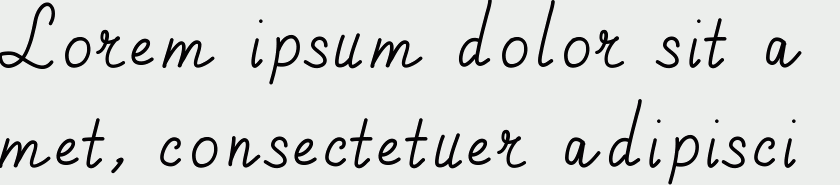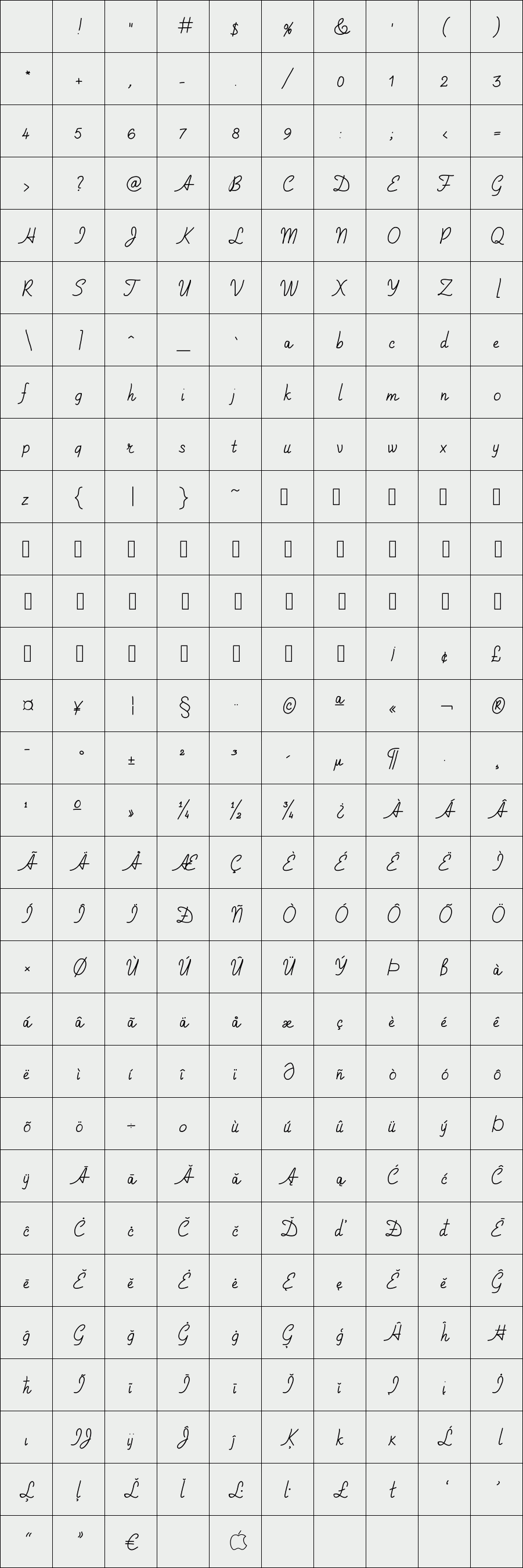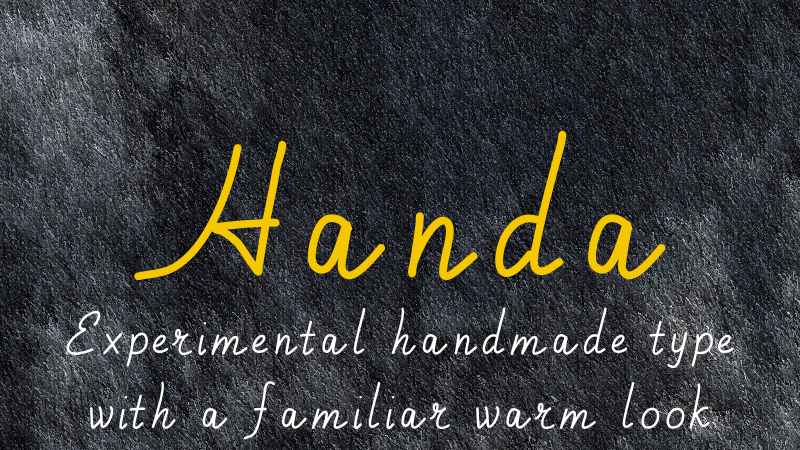
Handa
Handa font is a hand made pencil type designed by Andrei Olaru and published by Kreativ Font. With its rounded, almost italic lines, Handa can create a familiar warm look so necessary when you need to create a good feeling for your readers. Handa!